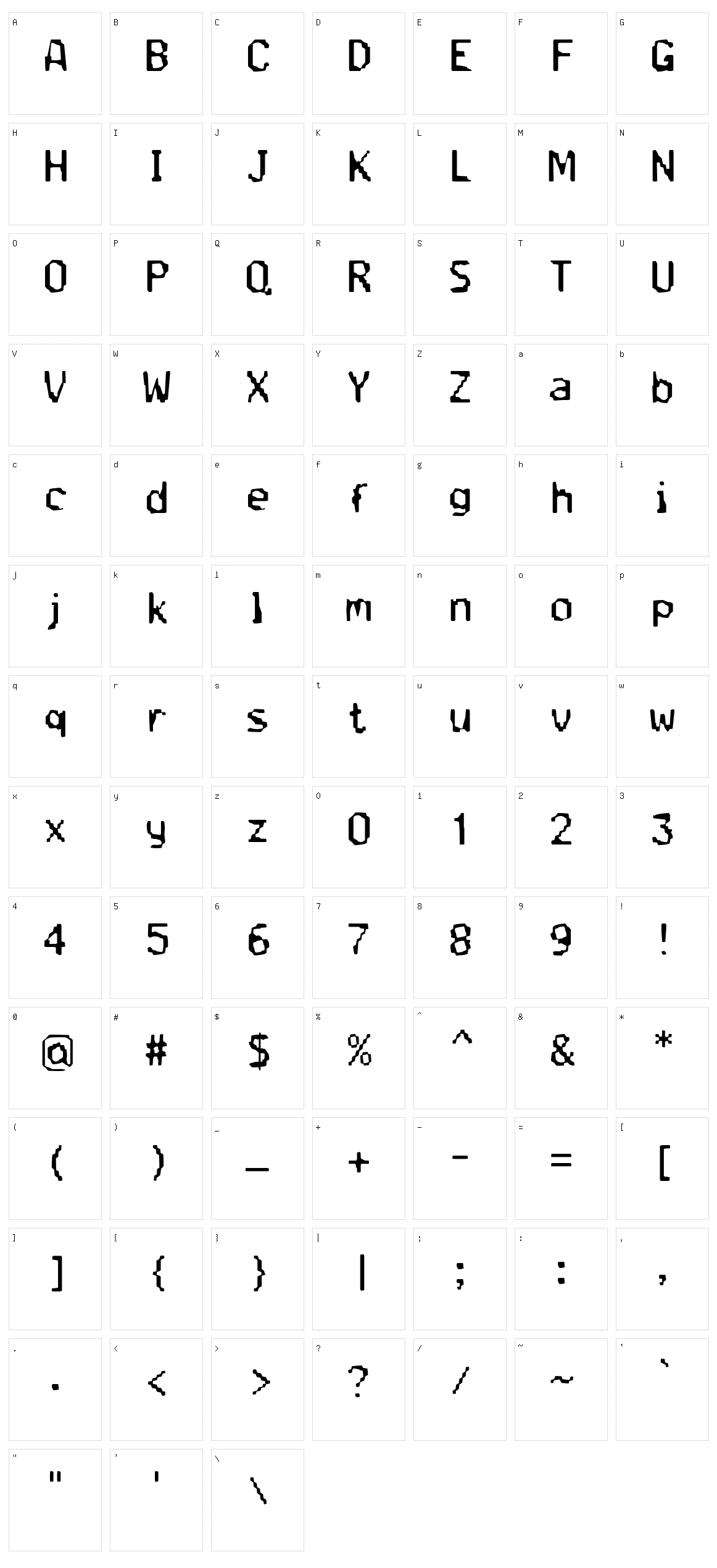
The free font SB Phormic is carefully designed by SelfBuild Type Foundry, showcasing a thoughtful balance of creativity and usability and falls under the Eroded font style. When you download the ZIP file, it contains only 33.38 KB of font files, making it lightweight and quick to download. Please review the license details below to understand permitted usage and distribution rights. If license information is not available, we recommend using this font for personal projects only or contacting the author directly for commercial usage permissions.